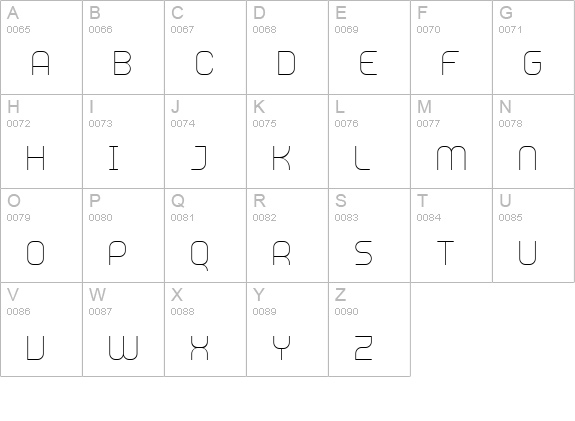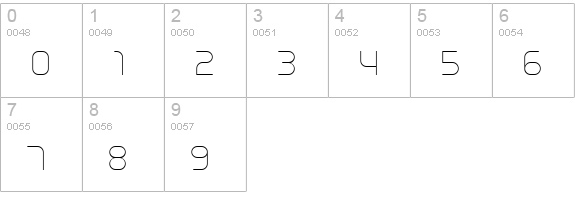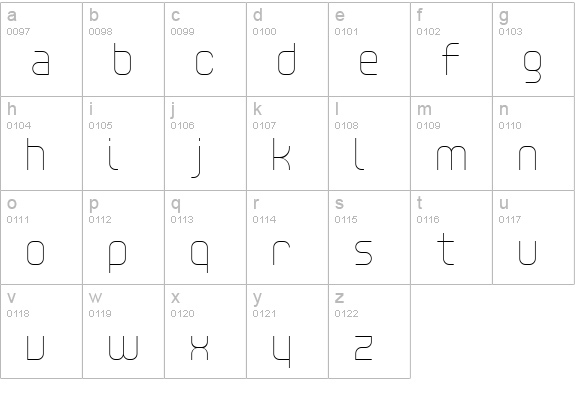
Unisect Light is a refined, elegant variant in the Unisect typeface family \xE2\x80\x94 well suited to elegant body text, refined sub-headings, and luxury branding.
Unisect Light is a beautiful and versatile font that will bring a touch of elegance to any project. With its clean lines and modern style, this font is perfect for both print and digital designs. Whether you're creating a logo, designing a website, or crafting a stunning invitation, Unisect Light will add a sophisticated and professional look to your work. One of the best things about Unisect Light is that it is free! That's right, you can download this amazing font without spending a dime. It's freely available to download at FontsMarket.com, a trusted source for high-quality fonts. This font features a unique combination of sleek and slender letterforms, making it ideal for both large headlines and small body text. Its legibility ensures that your message will be clear and easily readable, while its subtle curves and subtle details add a touch of personality and style. Unisect Light is also incredibly versatile, as it pairs well with a variety of other typefaces. Whether you want to create a clean and minimalist look or a bold and eye-catching design, this font will complement your vision perfectly. So why wait? Download Unisect Light for free at FontsMarket.com and elevate your designs to a whole new level. Whether you're a professional designer or a DIY enthusiast, this font will be a valuable addition to your font library. Don't miss out on this opportunity to enhance your projects with the elegance and style of Unisect Light.